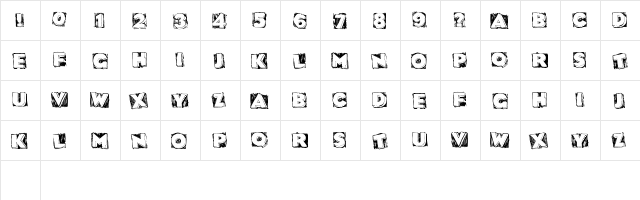
DatBox Regular
| Foundry | Xerographer Fonts |
| Designer | Max Infeld Xerographer Fonts |
Design Context for DatBox Typeface
DatBox is a composed and adaptable typeface that performs quietly and consistently across a wide range of design contexts.